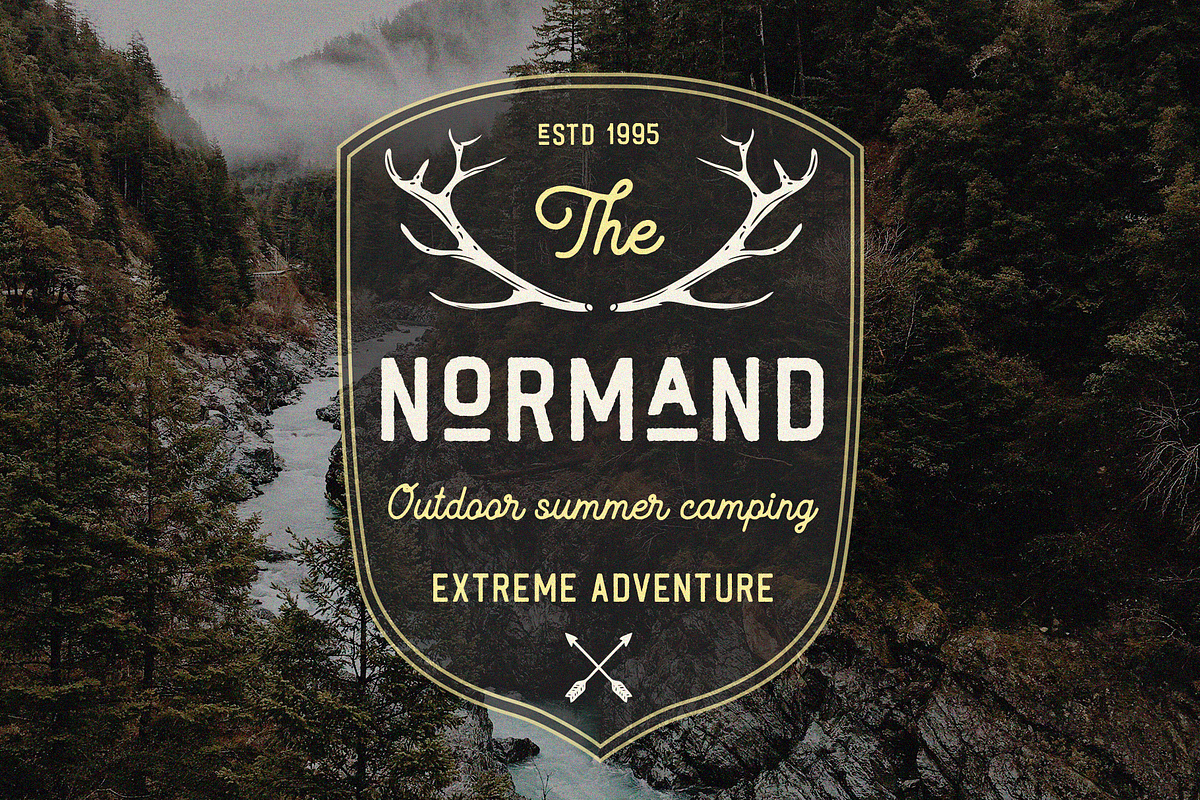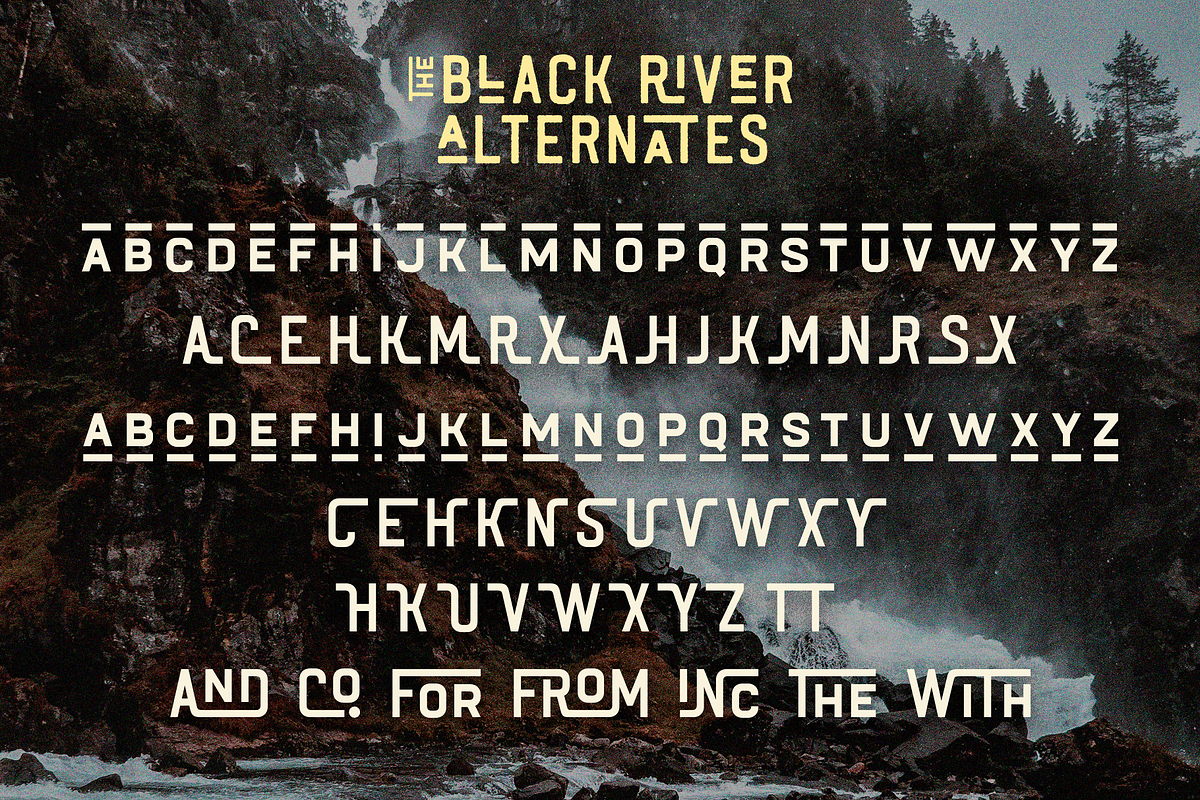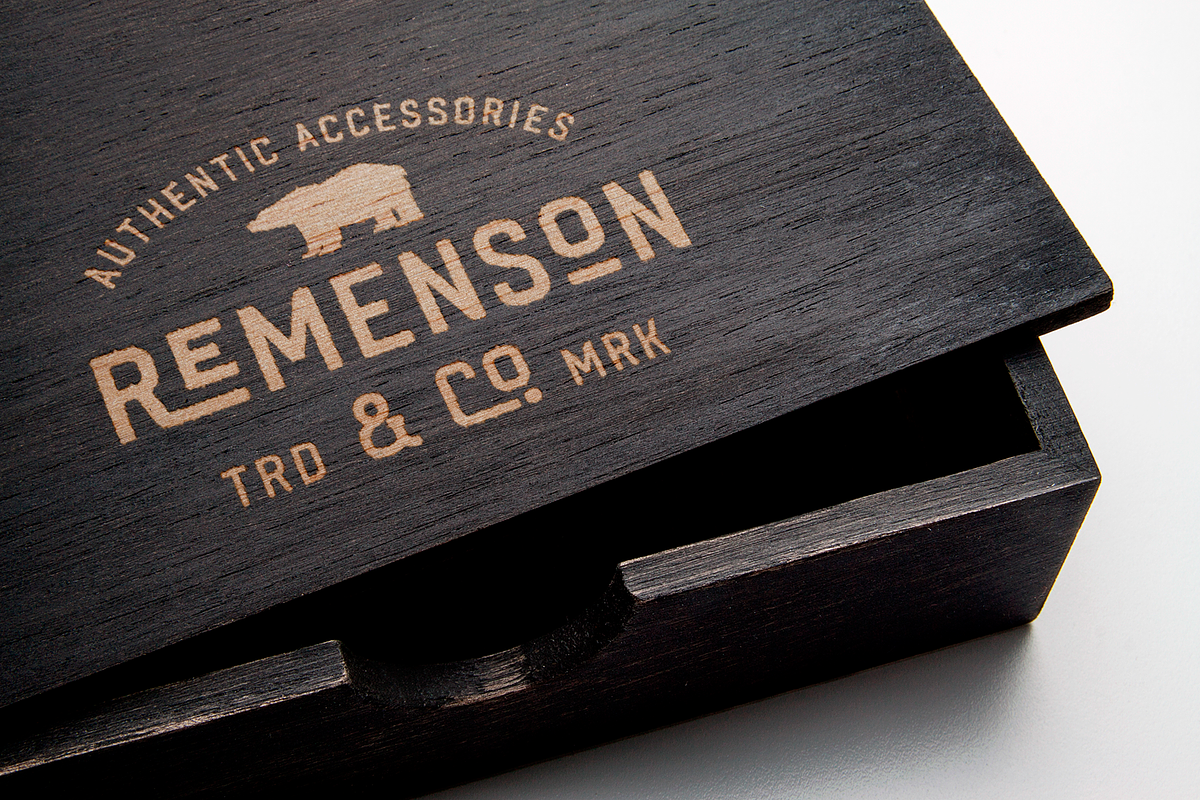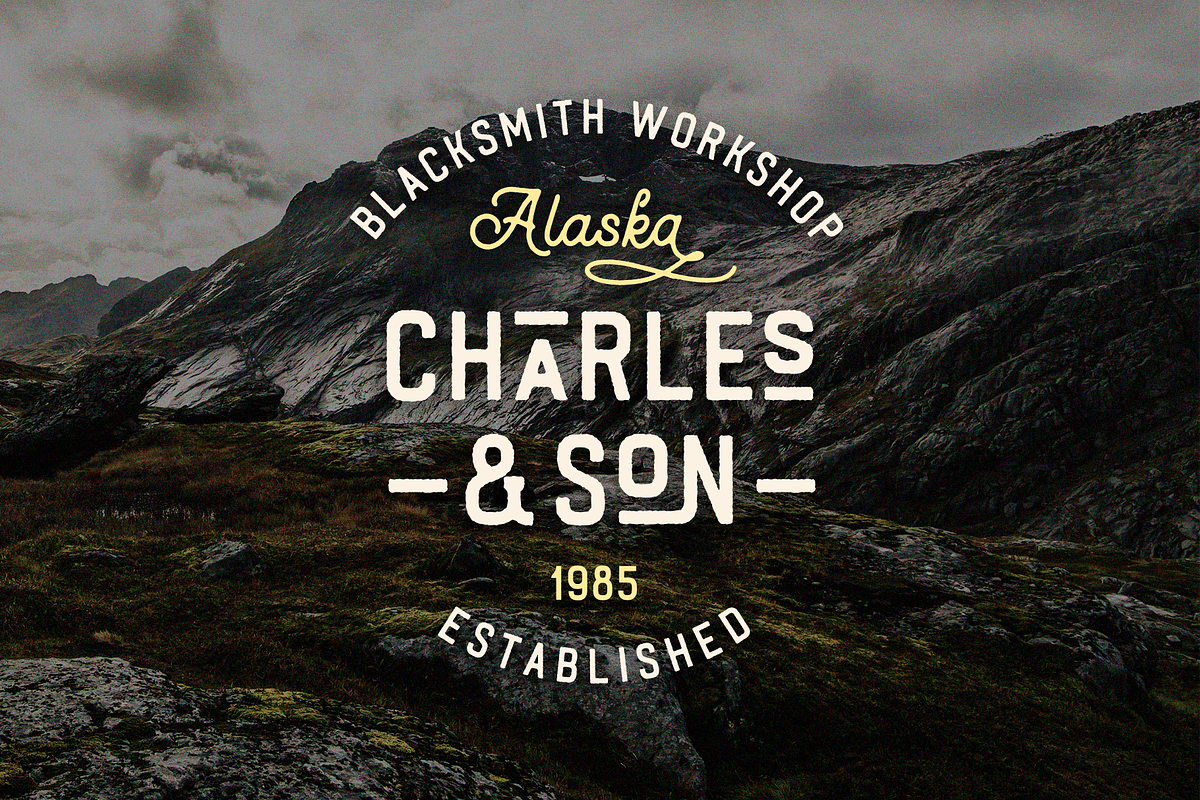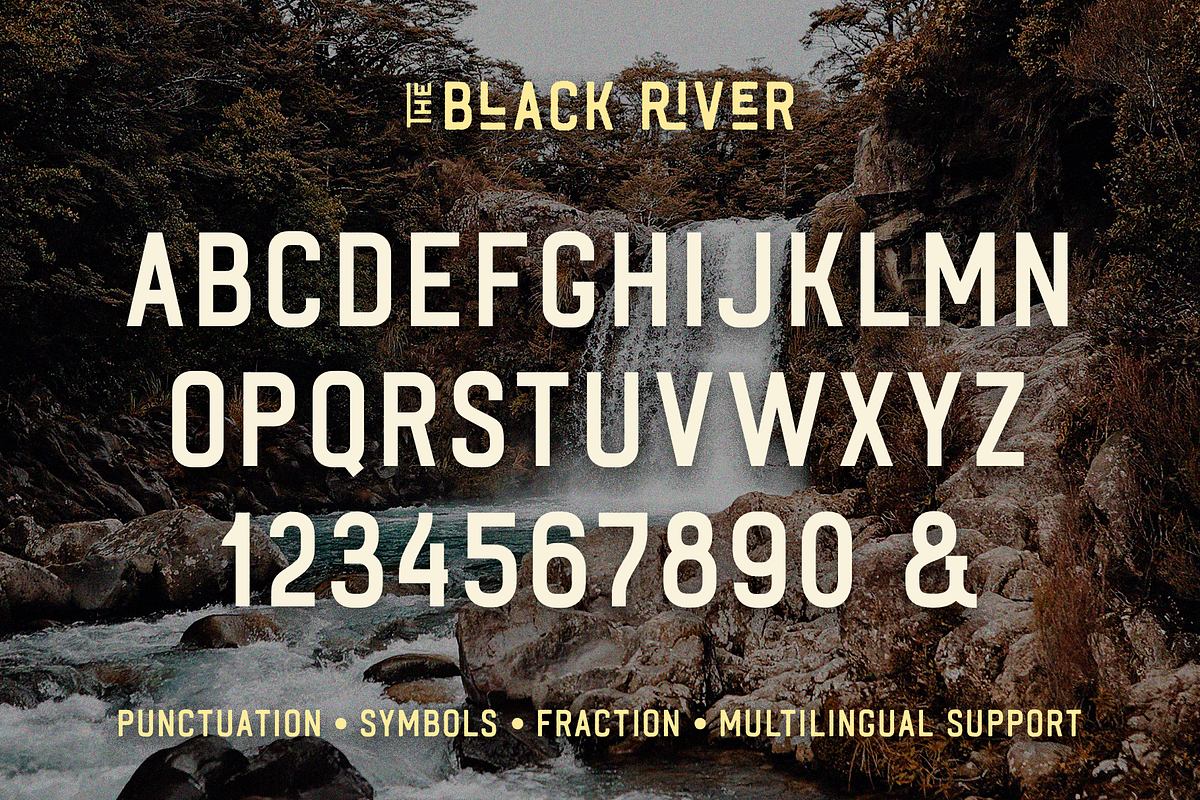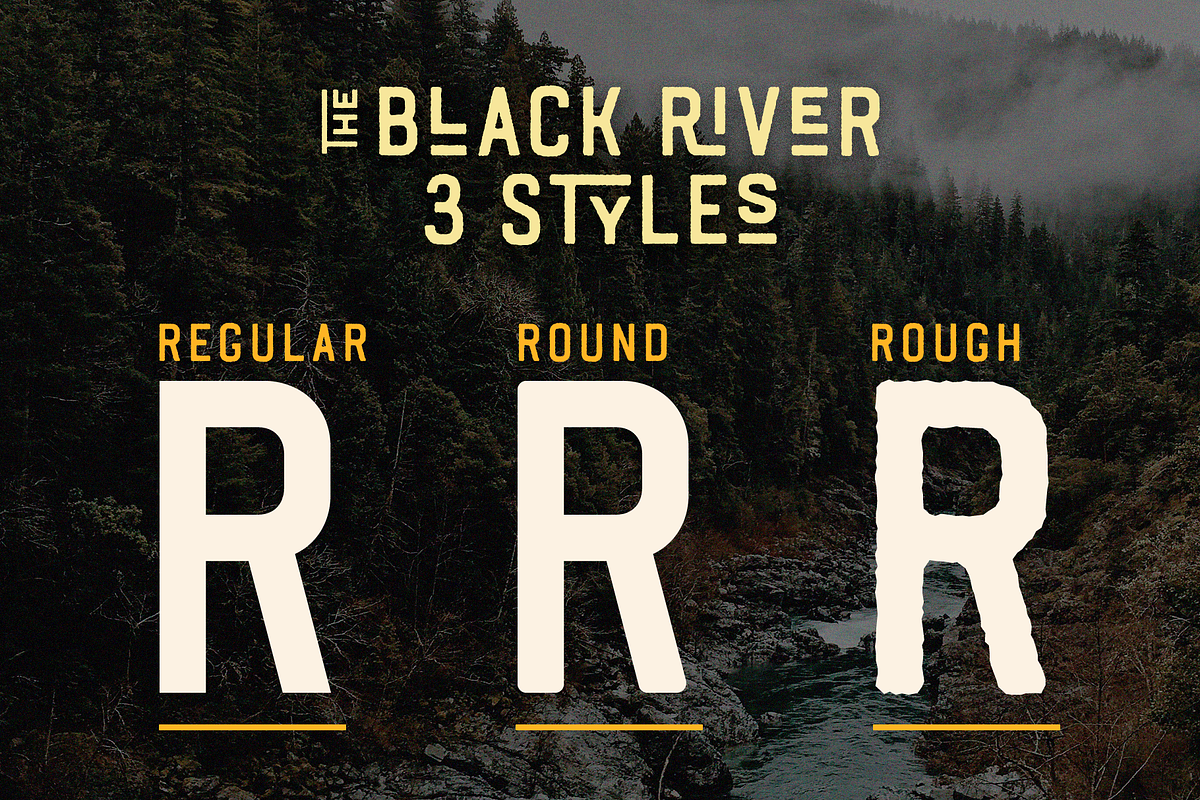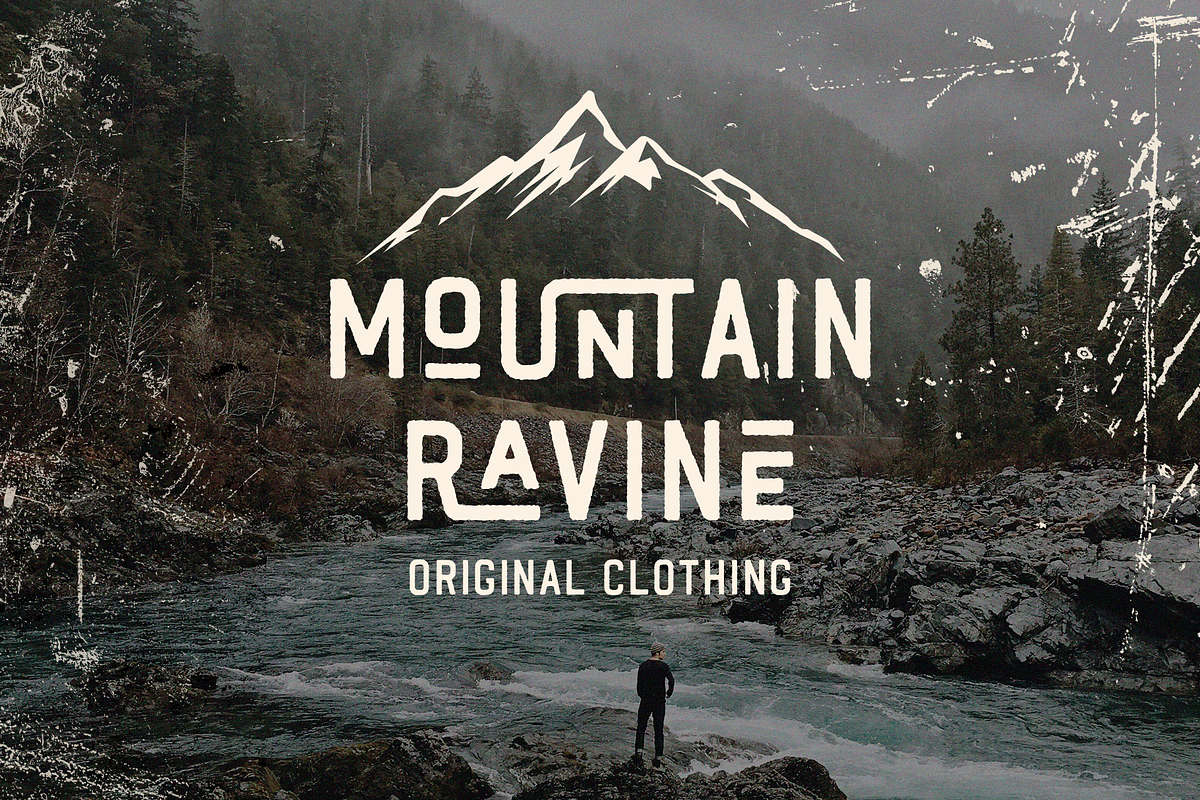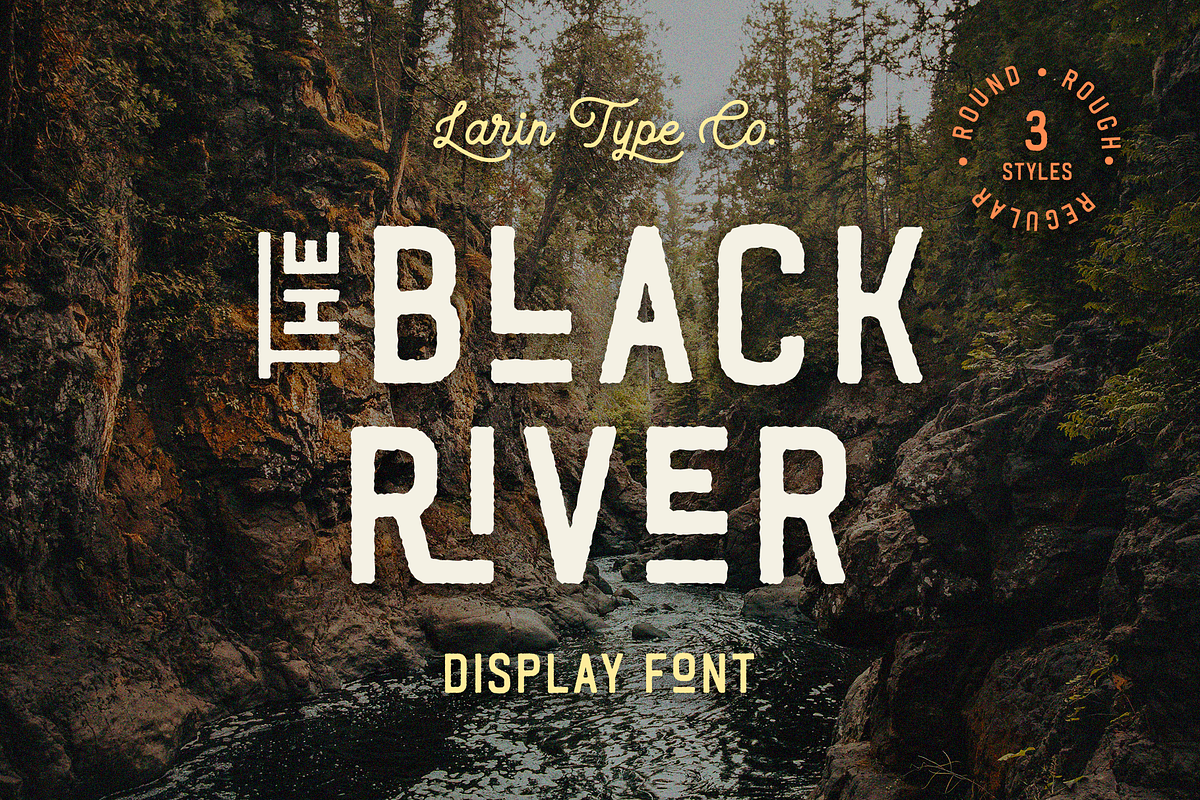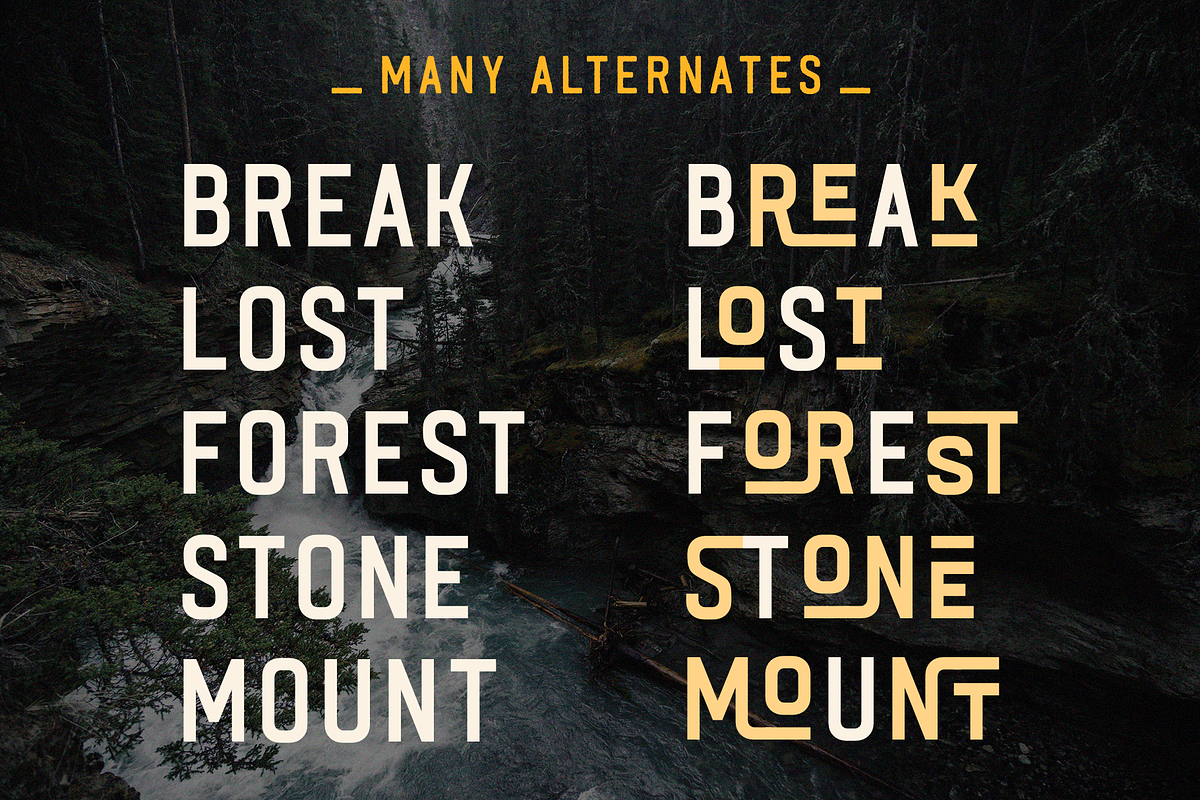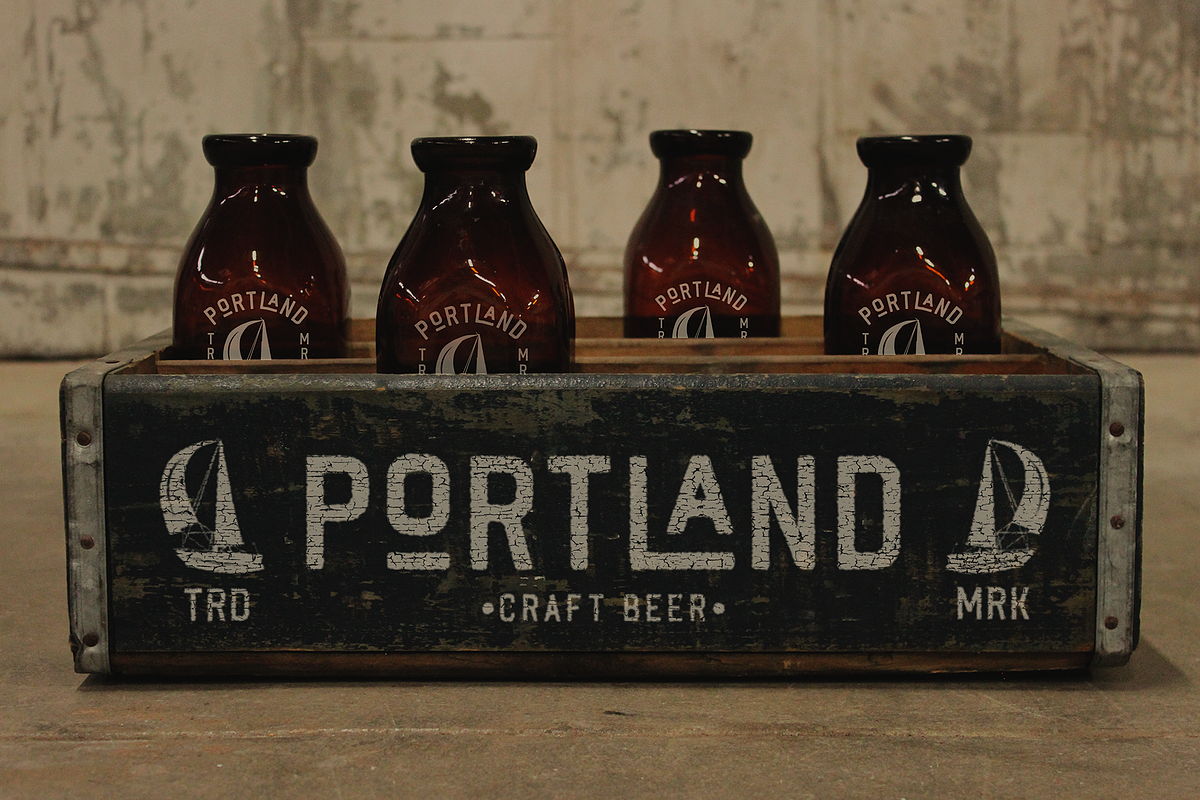
Black River
Black River It is a stunning display font that comes in three styles: Regular, Round and Rough. It also includes many alternatives and ligatures, so make them up to the extent that your design's creativity is enough. This versatile it can be used both in modern projects and in vintage ones, as a main or additional one. This font is easy to use, has OpenType features.
Following international symbols support: ÀÁÂÃÄÅĄÇĆÈÉÊËĘÌÍÎÏÐÑŃŁÒÓÔÕÖØÙÚÛÜŚŠŸÝŹŻŽßàáâãäåçèéêëìíîïðñòóôõöøùúûüýÿąćęłńśšźżž
Full Capital alphabet A-Z
Numbers, fractions
Punctuation and symbols
Alternates ( Uppercase and Lowercase )